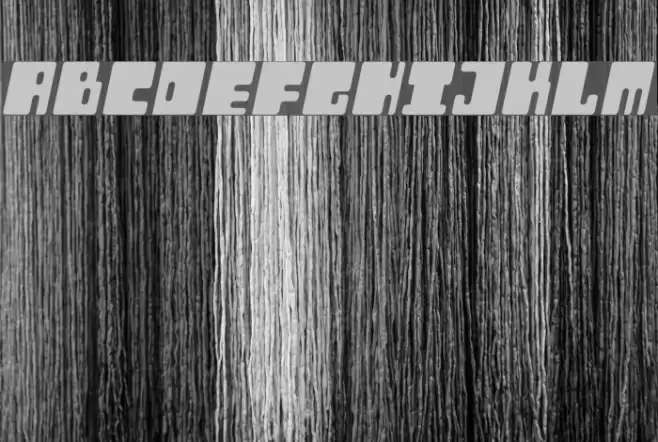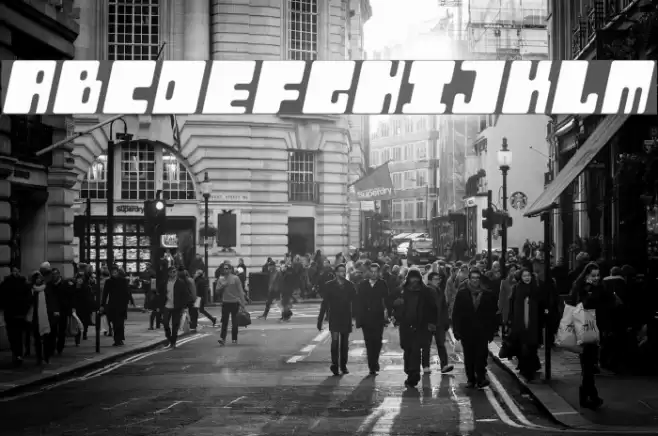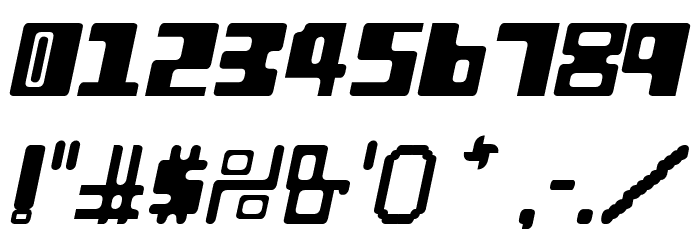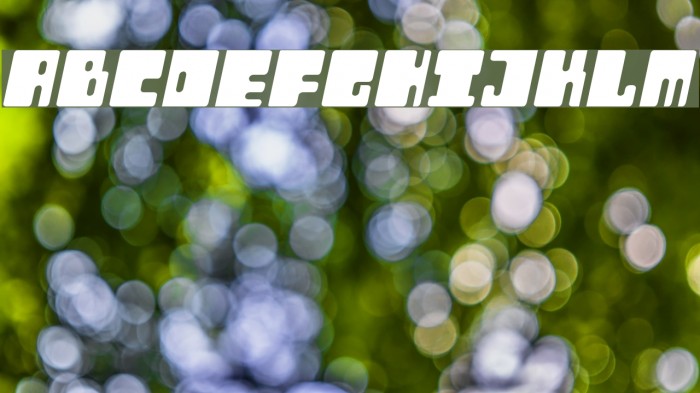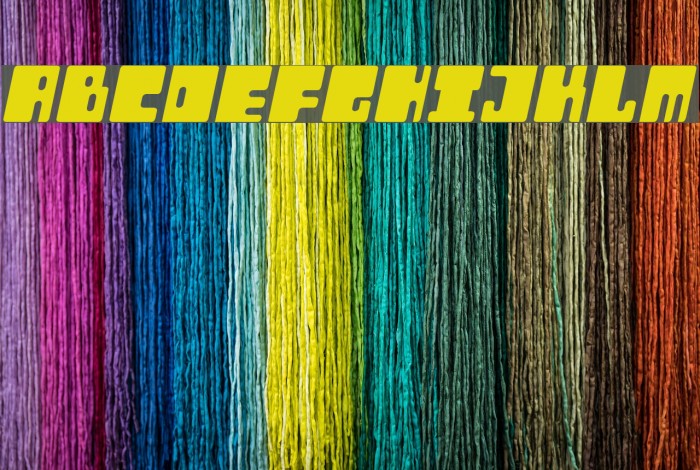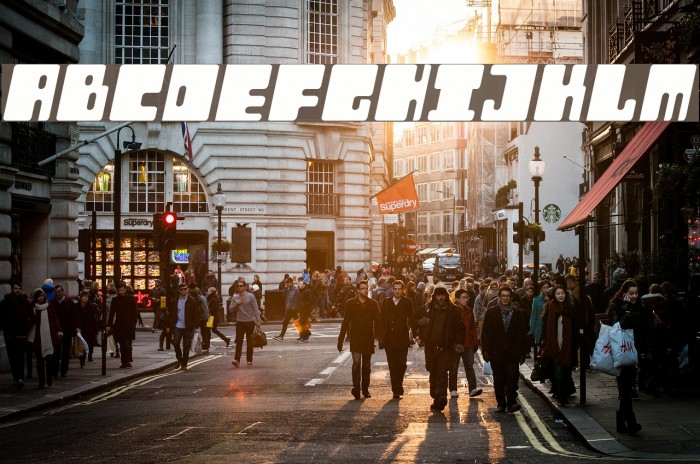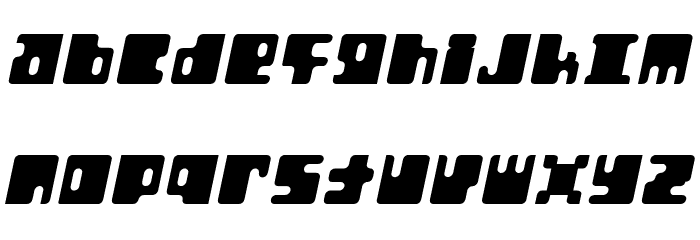
Orthotopes Italic Font
Orthotopes Italic Description
This font features a bold and dynamic style with a strong geometric influence. The characters are blocky and robust, with a slight slant that adds a sense of motion and energy. The uppercase and lowercase letters maintain a consistent weight, creating a uniform appearance. The numerals are clear and distinct, matching the boldness of the alphabetic characters. Special characters are designed with the same bold, angular style, ensuring consistency across all glyphs. The overall design is modern and impactful, making it suitable for attention-grabbing headlines and displays.
A bold, geometric font with a slight slant, perfect for modern and dynamic designs from Uncategorized fonts.
- Proposed Projects: Ideal for sports branding, tech-related projects, posters, and modern advertising campaigns.